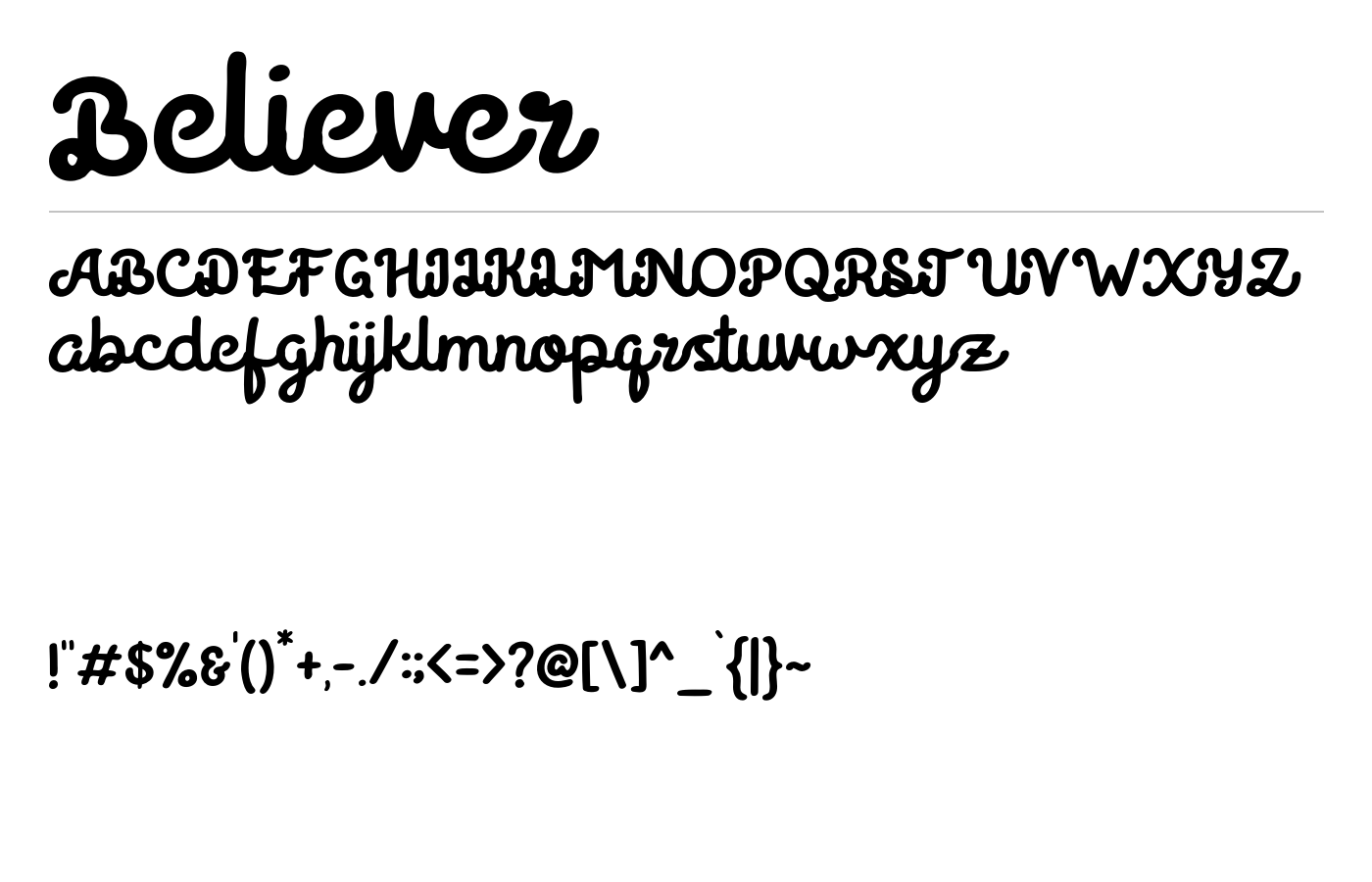
Believer is a playful, bold script font with rounded, bubbly letterforms that offer a friendly and approachable feel. Its consistent weight and smooth curves make it ideal for creative branding, fun headlines, and youthful packaging where a casual yet eye-catching style is desired. This font works well in projects that want to convey warmth and personality without feeling too formal or traditional.
Believer Font
About Believer Font
| Font family | Believer Font |
| Release date | 2018-03-19 |
| Designer | Lukman Hidayat "Viaction Type.Co" |